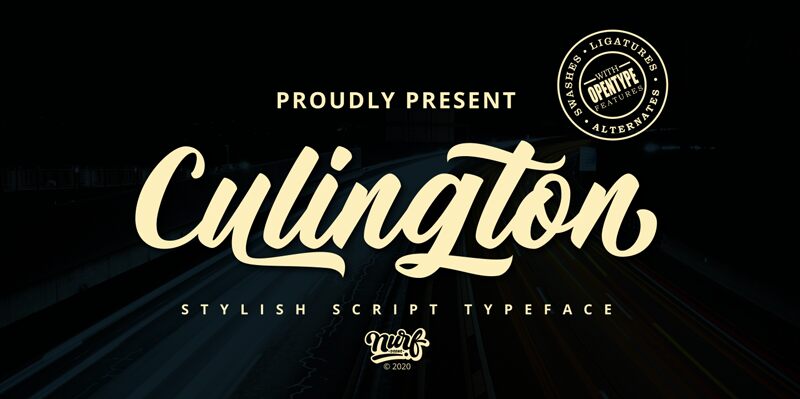
Culington by Nurf Designs embodies the charm of personal touch in its handwritten style, evoking the elegance and fluidity of calligraphy. The font dances with a natural grace, featuring sweeping curves and playful flourishes that suggest a sense of sophistication and whimsy. Its strokes carry the warmth of human touch, making it an inviting choice for projects that require a bespoke feel.
Ideal for invitations, branding, and editorial work where personality is key, Culington lends itself beautifully to designs that aim to be distinctive and heartfelt. Whether it graces the cover of a boutique shop's catalogue or adds flair to wedding stationery, this font is sure to leave an impression with its artisanal allure and handcrafted finesse.